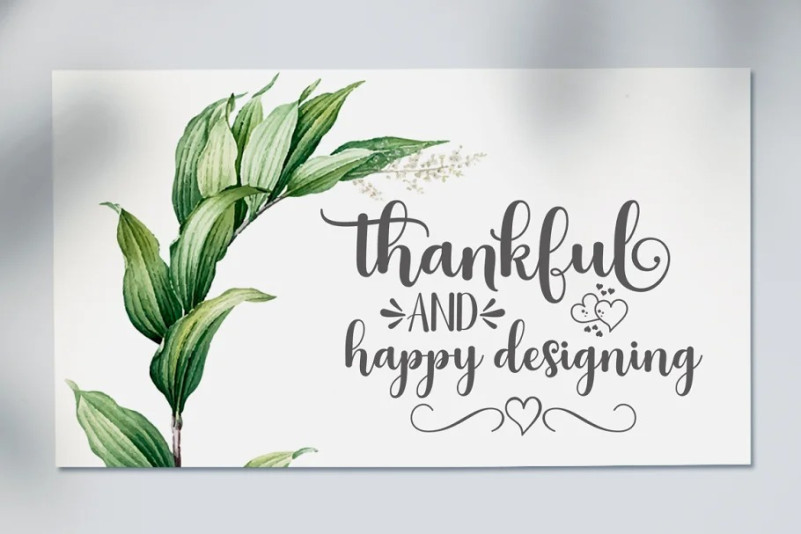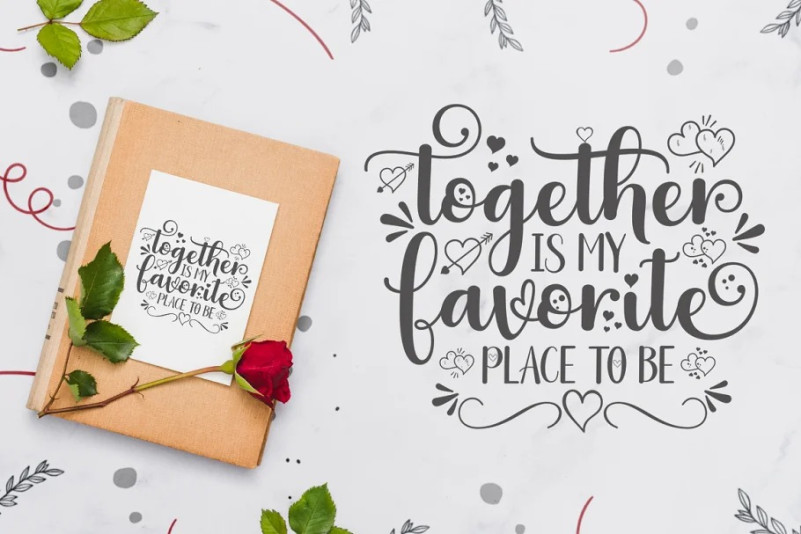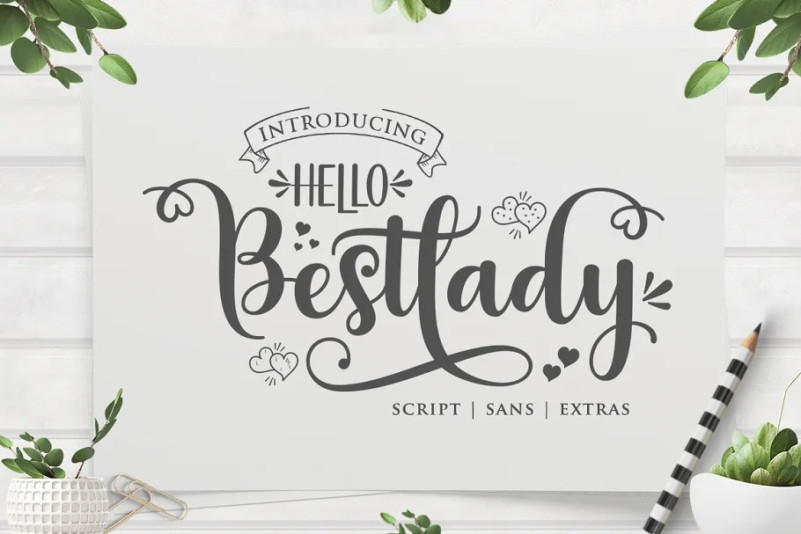
Hello Bestlady Font
Hello Bestlady Script Font , Sans and Extras are beautiful and romantic fonts. Looks amazing on wedding invitations, thank you cards, quotes, greeting cards, logos, business cards and any other design.
The font includes OpenType features with alternative styles, ligatures, and multiple language support